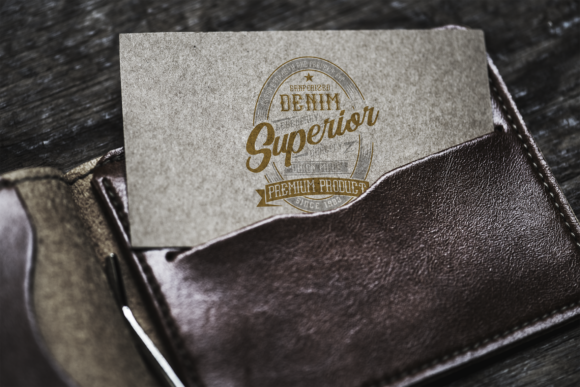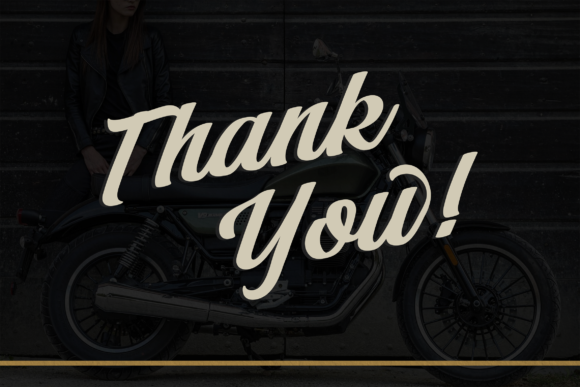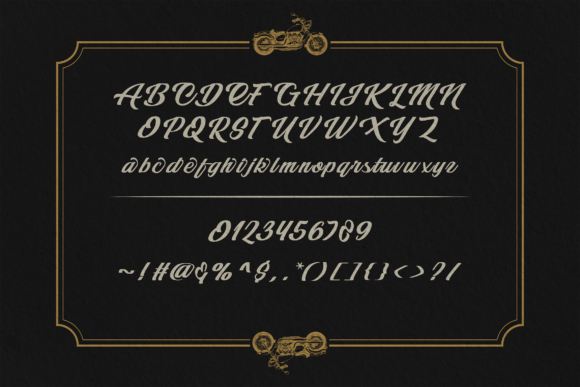
About Clarkson Font
Clarkson is a modern handwritten font that is cursive, bold and stylish. It is defined by smooth curves and is perfect for fashion branding or editorial designs. Add it confidently to your projects, and you will love the results. This font is PUA encoded which means you can access all of the glyphs and swashes with ease!